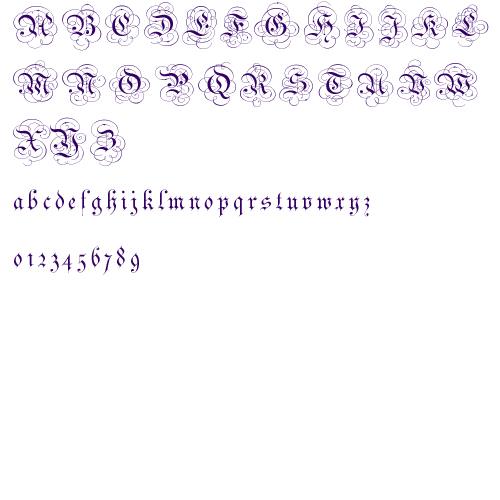
Fireside Threads is happy to present Parchment Alphabet machine embroidery font which has Ornate machine embroidery font showcasing flowing script with rich purple hues. Ideal for dynamic projects on garments or cushions, available in PES, DST, and 10 other formats to ensure compatibility. included. If you would like to view more embroidery fonts and alphabets please search our embroidery fonts page.